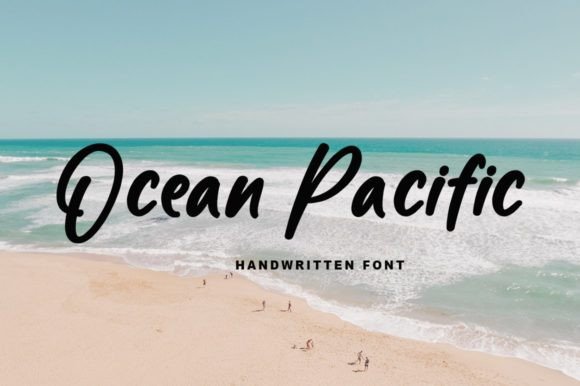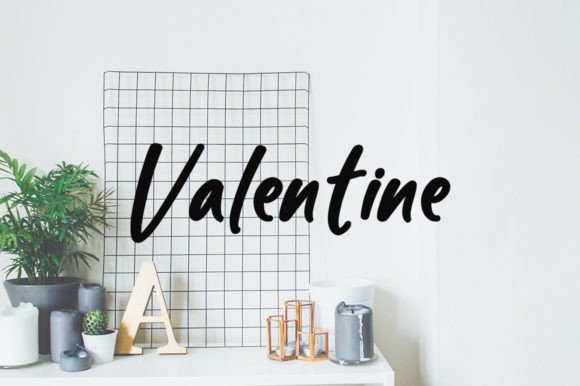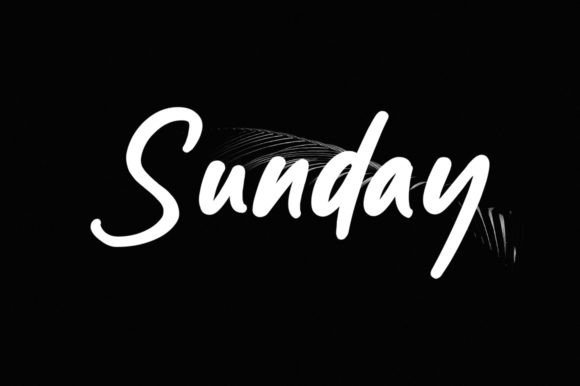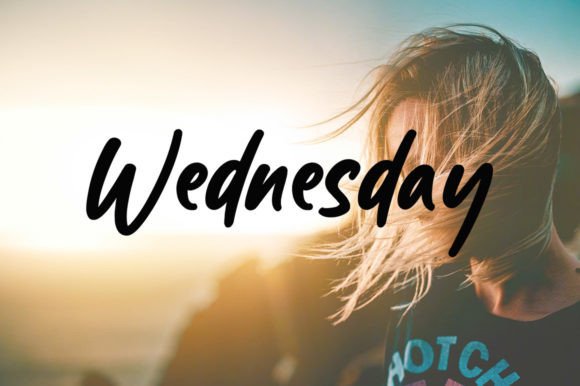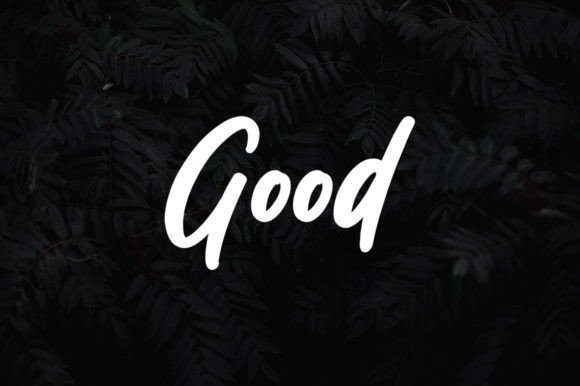
About Ocean Pacific
Ocean Pacific is an enchanting handwritten font. This versatile script font has a wide spectrum of applications ranging from greeting cards to headlines and is guaranteed to add a romantic feel to your next project.